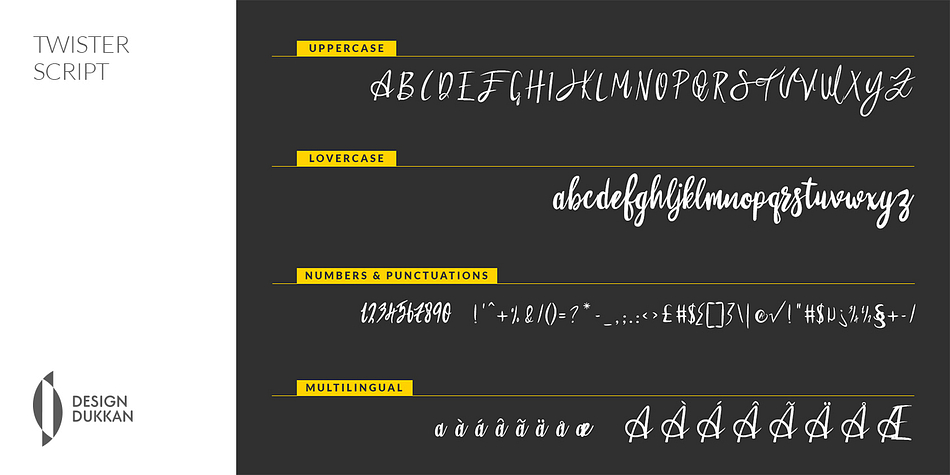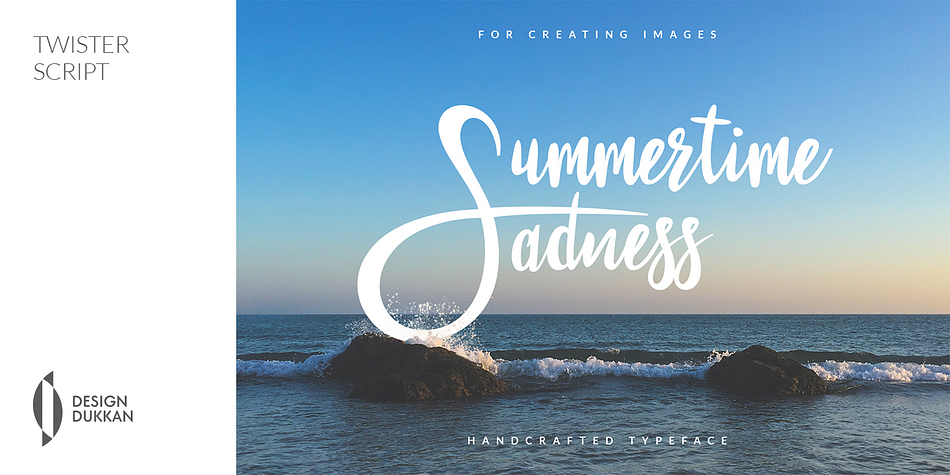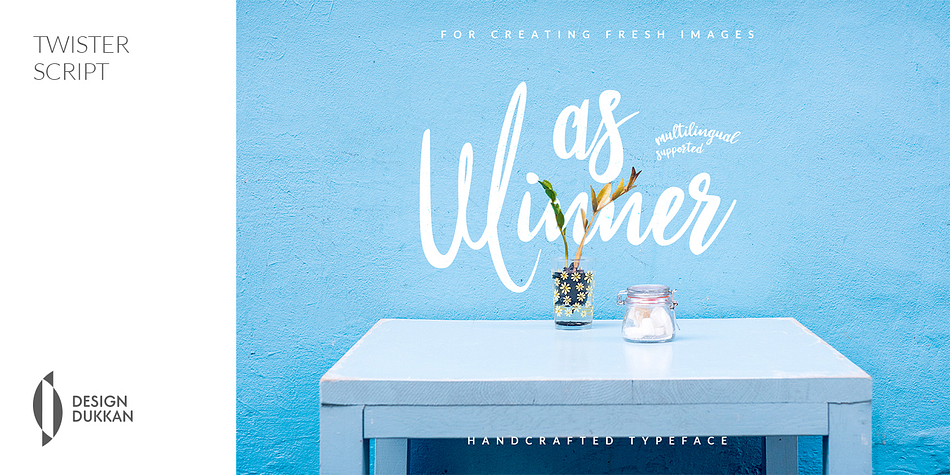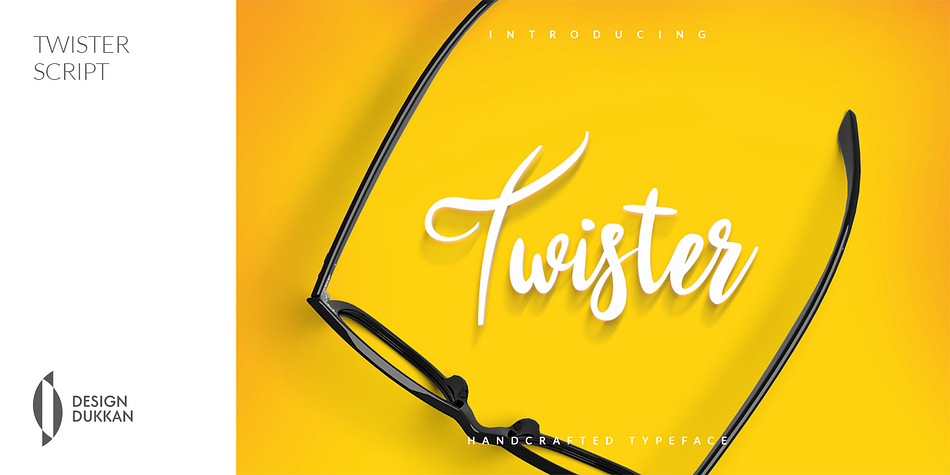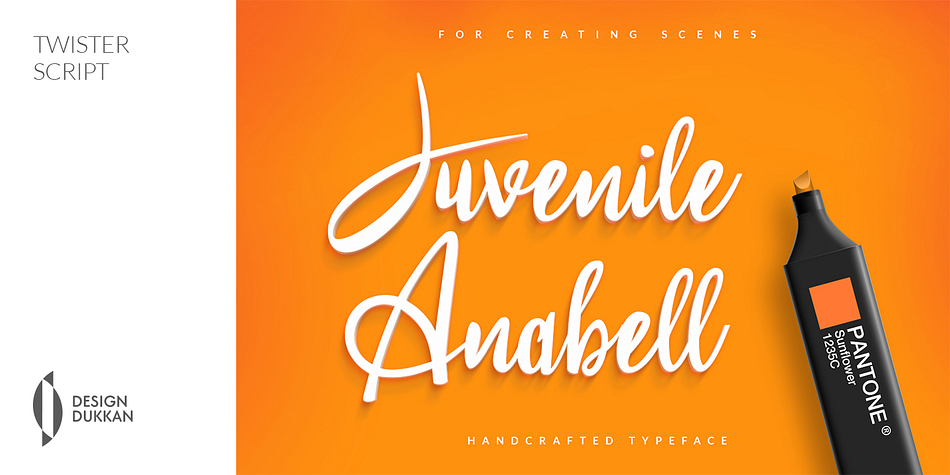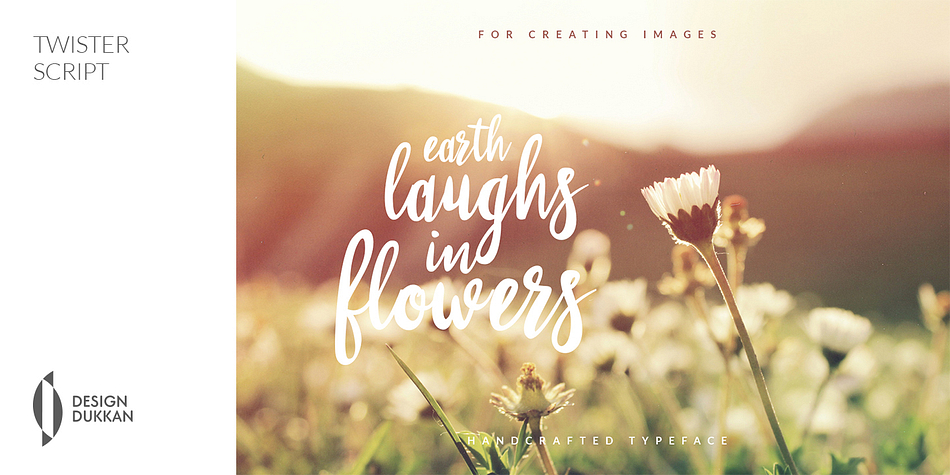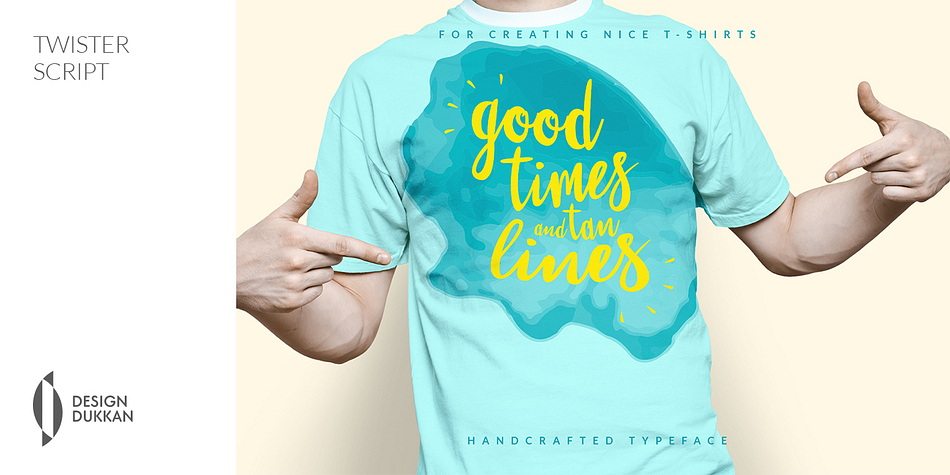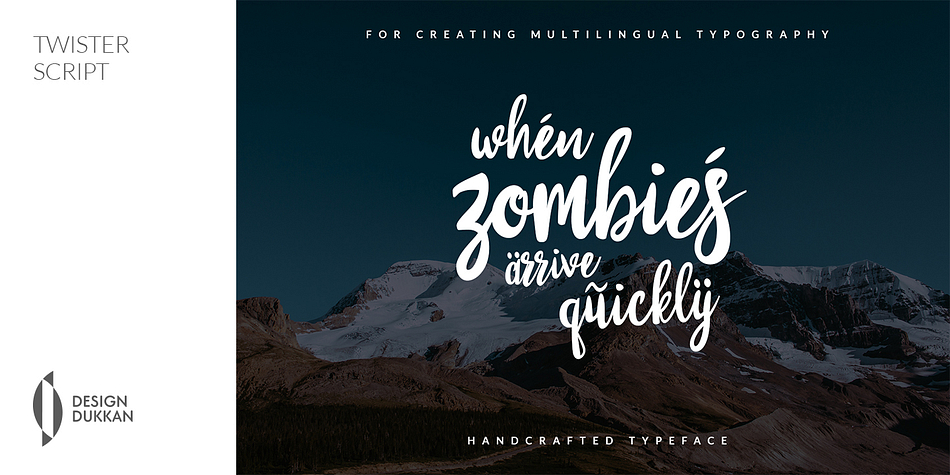
Twister Script is a script font published by DesignDukkan.
Twister Script is a hand-made font created by using athick brush. It is a lovely font with charming thick lines.
It can be easily used for t-shirts, bags, invitations and so on… It creates interest with its amazing uppercase characters. Thank you for viewing it. We hope you will like it.